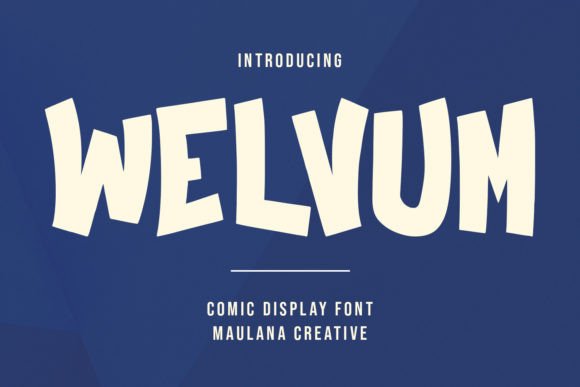
Embark on a Typographic Adventure with Welvum Font – A Comic Display Masterpiece for Limitless Creativity
Unleash your imagination and dive into the world of Welvum Font, a display font crafted with bold strokes, playful characters, and a touch of ligatures and alternates. This captivating font is your gateway to extraordinary creative possibilities.
With Welvum, transform your designs into eye-catching spectacles. Its bold and playful nature adds a touch of whimsy and fun to any project, whether it's a logo, social media post, movie title, book cover, or even an extended text.
Welvum's versatility knows no bounds. It effortlessly complements script or serif fonts, creating harmonious typographic compositions. Experience the joy of seamless multilingual support, with over 100 languages at your fingertips.
Step into the spotlight with Welvum and let your creative genius shine. Make a lasting impression with logos that pop, social media posts that captivate, and movie titles that ignite curiosity. Elevate your book covers and create short or long texts that dance off the page, leaving an indelible mark on your readers.
Welvum is your secret weapon for crafting stunning designs that resonate with your audience. Embrace the power of this comic display font and watch as your creative vision takes flight.